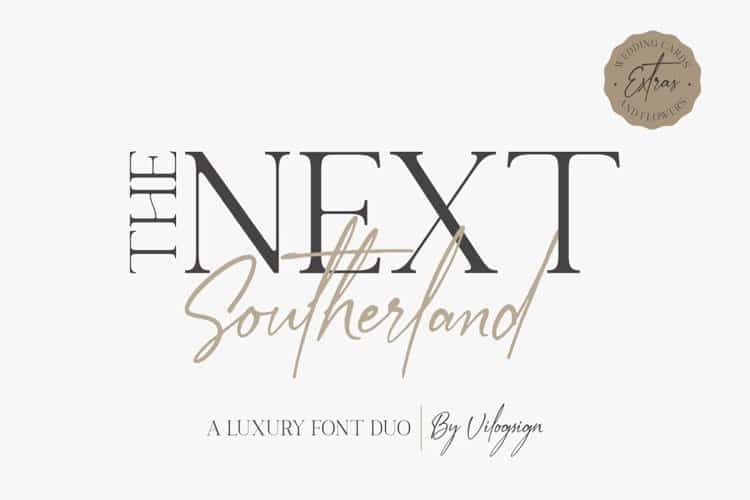
The Next Southerland Font Duo
The Next Southerland is a fresh modern handwritten script & luxury serif font uppercase. This duo features script scripts that are truly handmade that feature ligatures and a refined uppercase serif font, allowing you to create unique designs that suit your needs.
A modern, rustic, textured, a teture typeface script font with lowercase letters alternatives and 30 ligatures to complete your needs. With add extra wedding card vector and flowers vector make your job to be complete and easy. This font is very good with multilingual support. With built in Opentype features, this script comes to life as if you are writing it yourself.
Vilogsign created a lovely font to make it look natural, modern, classic and elegant, very suitable to make a branding, magazine, fashion, quotes, logo, packaging, and other.